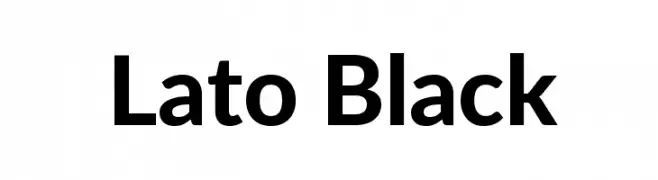
A sleek, minimalist font with thin, uniform strokes and a modern aesthetic.
A modern, clean sans-serif font with a friendly and versatile design.
A bold, modern sans-serif typeface with clean lines and excellent readability.
A sleek, modern, light italic font with smooth curves and balanced spacing.
A bold, italic sans-serif font with a modern and dynamic style.
A modern, italicized sans-serif font with clean lines and excellent readability.
A bold, modern sans-serif font with excellent readability and balance.
A sleek, modern hairline italic font with elegant and fluid characteristics.
A modern, light sans-serif font with a clean and approachable design.